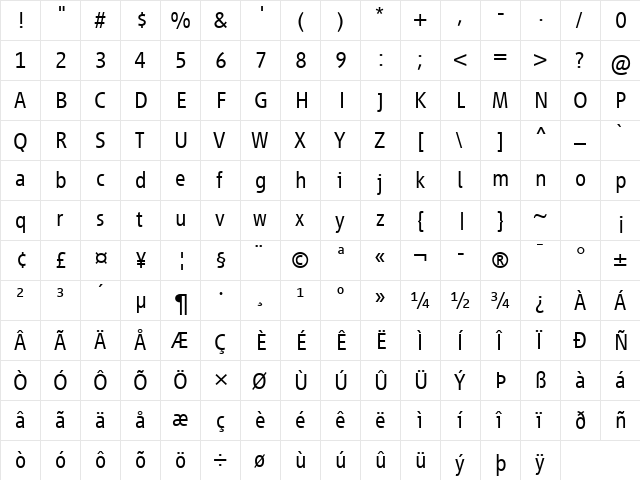
Vialog LT Com Light
| Foundry | Linotype GmbH |
| Designer | Werner Schneider |
Design Context for Vialog LT Com Typeface
Vialog LT Com takes a measured approach to typography — its balanced proportions and neutral character make it a reliable workhorse for both digital and print work. Its slender proportions lend an understated elegance to any composition.